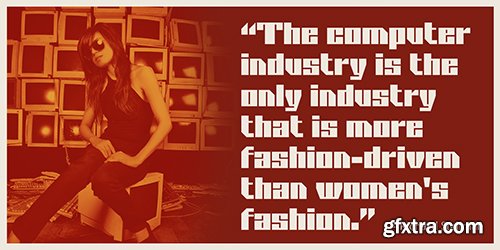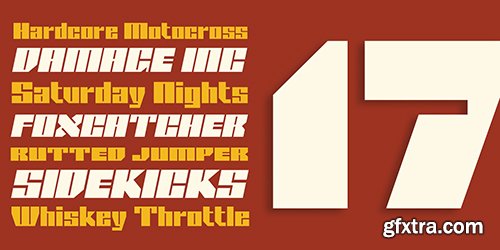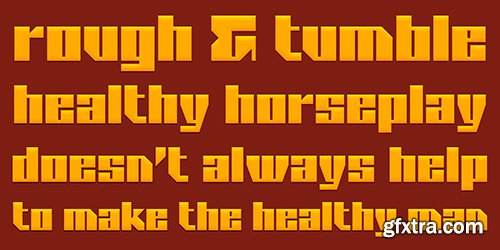
Blackheath Pro AOE Font
Bold dynamic typography finds its home in Blackheath Pro AOE.
Geared up and dialed into an industrial/sports dynamic vibe, Blackheath Pro AOE started as a digitization of a film typeface called Roberts Square by LetterGraphics. From there, this rigid geometric typeface was taken from its limited character set and expanded to a rich pro glyphset including numerals, punctuation, small caps, small caps scaled figures, unlimited fractionals, superiors & inferiors, ordinals, tabular & proportional figures, and an expanded language glyph set.
From hardcore titling to motocross promo graphics, sports events to robot battles, the Blackheath Pro Family is ready to rock your designs. Both the Regular and Italic styles are bundled together into a family package at a single price.